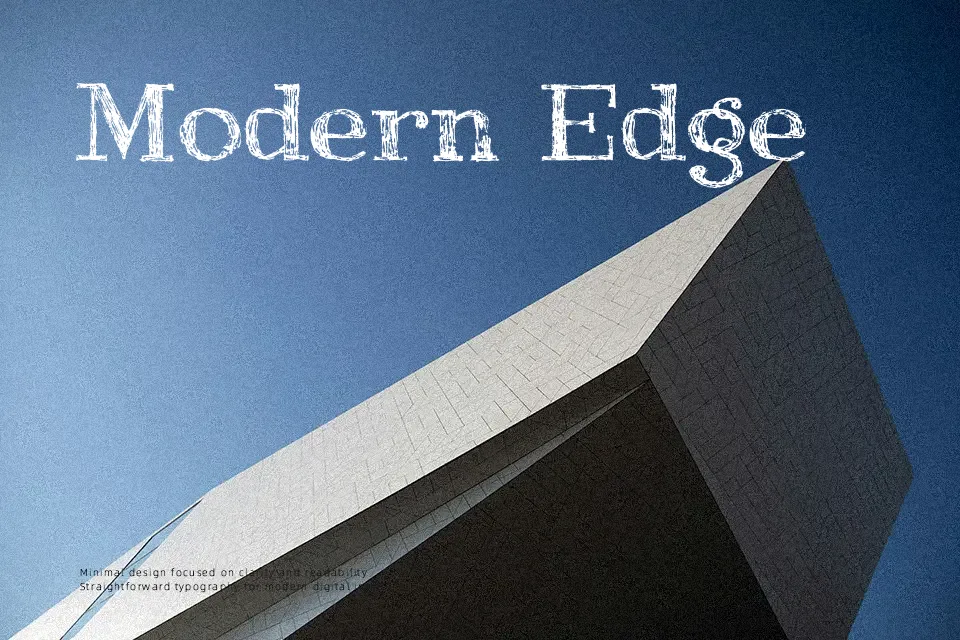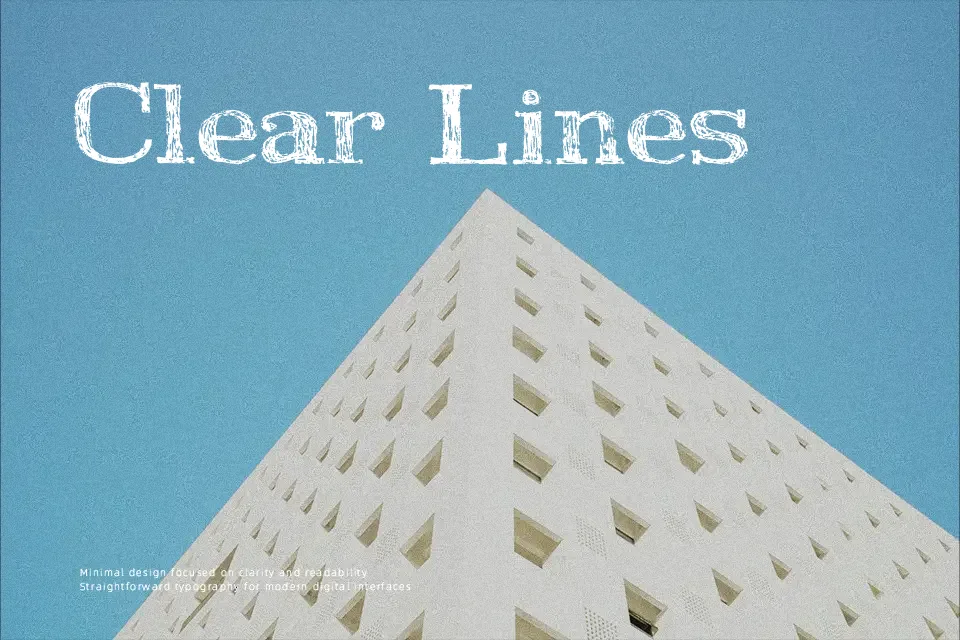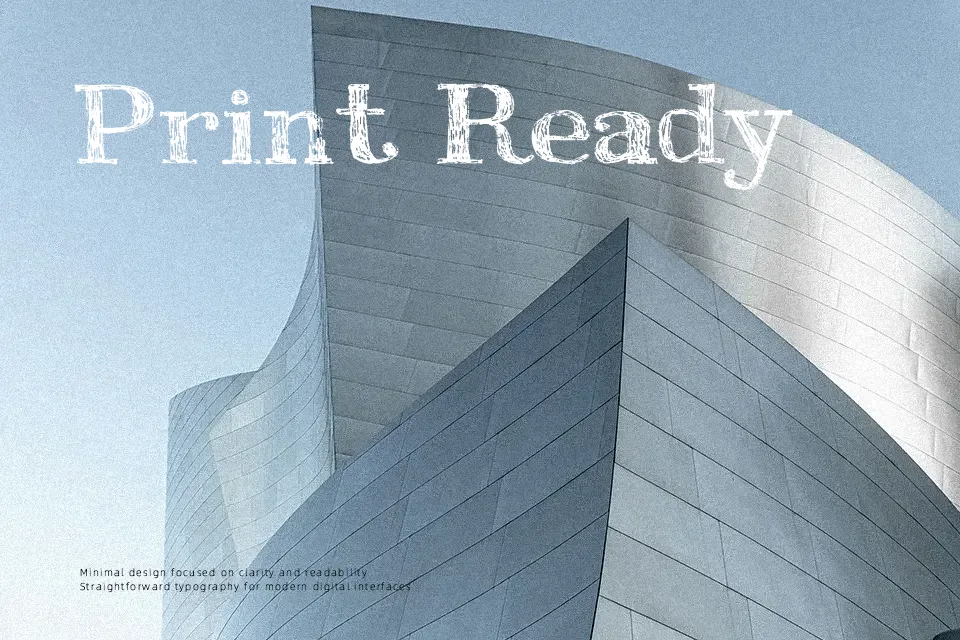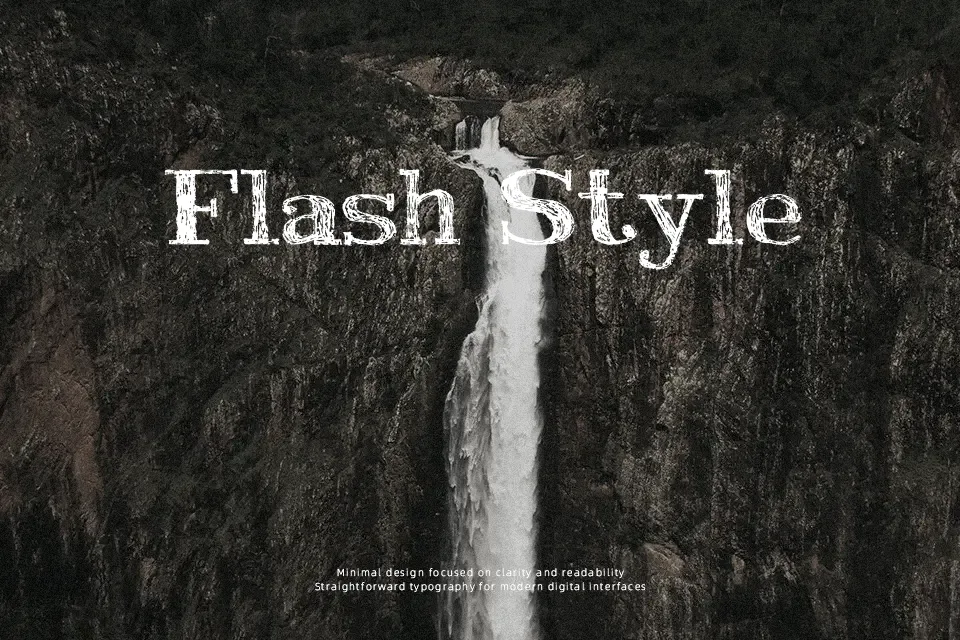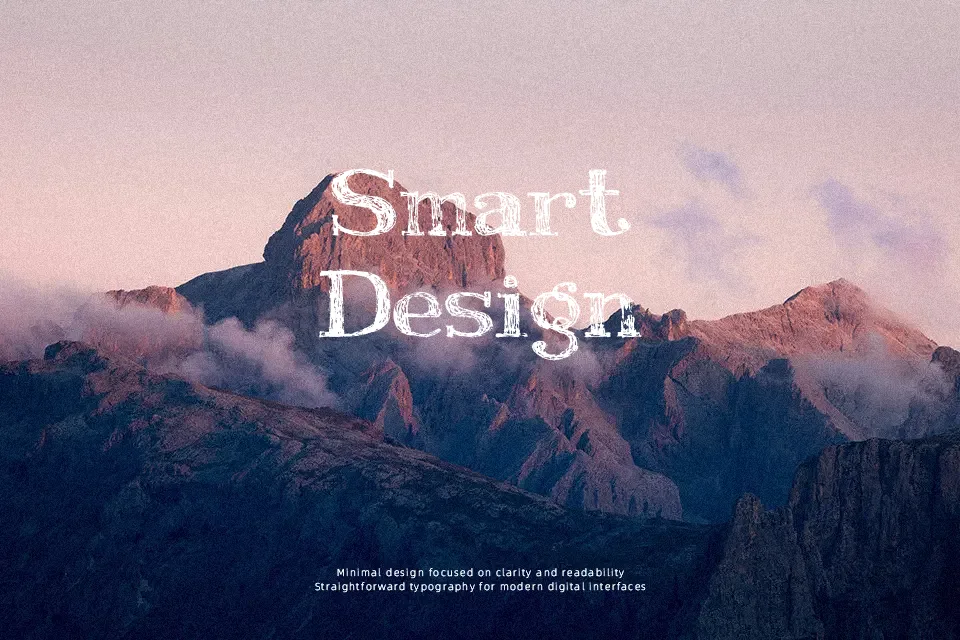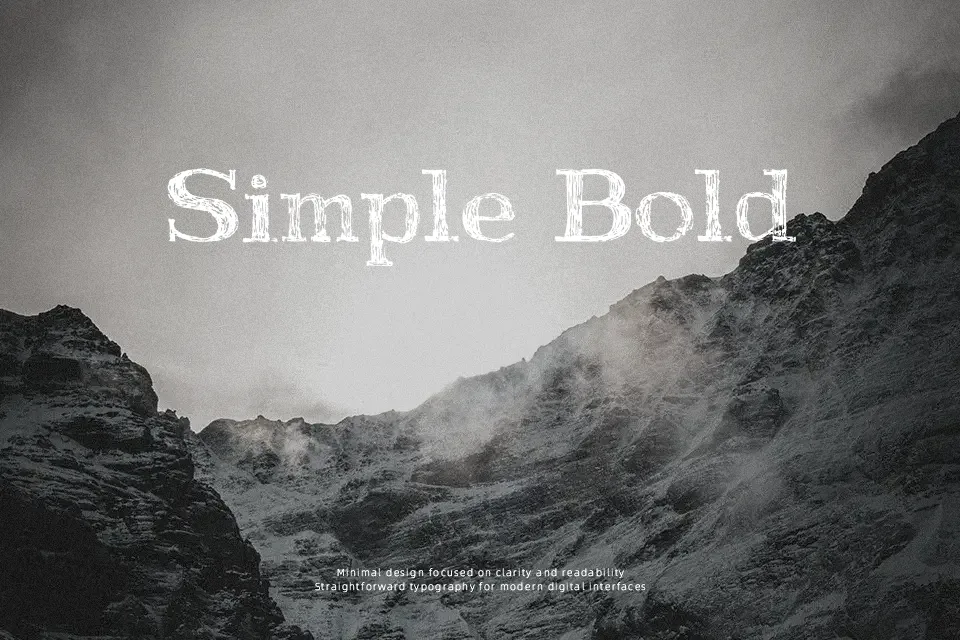
Travel Diary Font
Designed by Siddharth Dasari
Travel Diary Font showcases an informal, rough-hewn structure built from spontaneous pencil-like strokes, moderate character spacing, and slightly irregular proportions. Its glyphs emulate unpolished handwriting, keeping headlines visually engaging while projecting an adventurous tone across outdoor apparel labels, café signboards, and book jackets. Readability remains sharp when set at medium or prominent display scales. However, the heavy texture and compact letter counters degrade legibility within continuous reading environments. Setting extended paragraphs or micro-sized interface text quickly causes visual fatigue. For prominent titling requiring handcrafted charm rather than corporate neutrality, the typeface delivers distinctive personality.
Best For: Vacation scrapbook headlines, outdoor apparel graphics, artisan food packaging, café menu signage
Not Ideal For: Extended body paragraphs, technical software documentation, legal agreements, small user interface captions